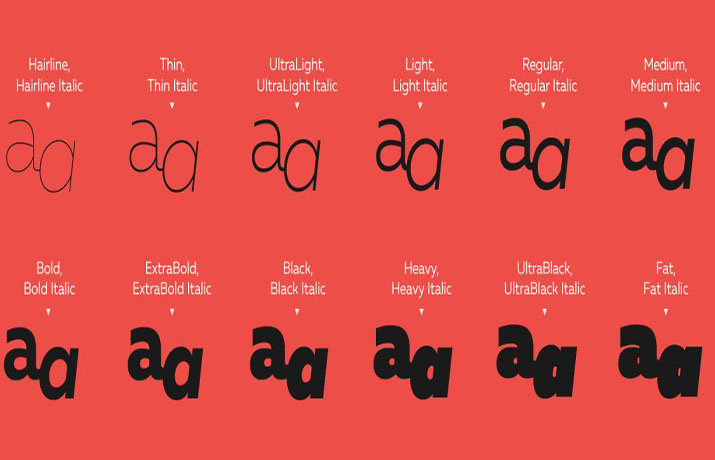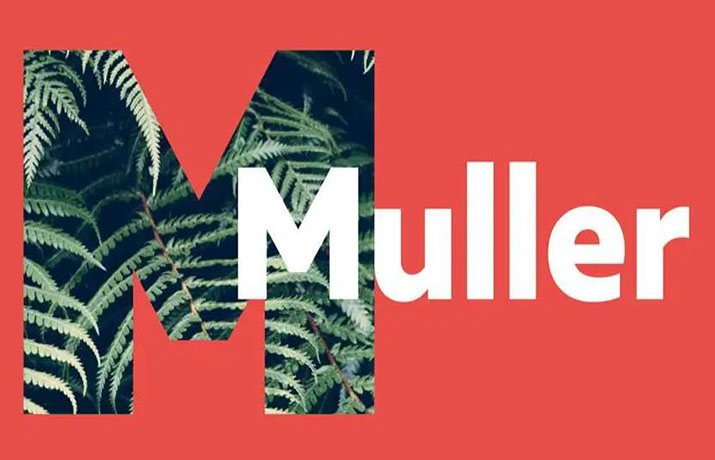
Muller Font is a modern sans serif typeface designed by Fontfabric, a Bulgarian type foundry. And it is a great choice for titles, headlines, and body copy.
The font features a clean and minimalist design that is perfect for a wide range of design applications, from branding and advertising to editorial and web design.
The font has a clean and uniform design, with well-spaced letters and a balanced proportion that ensures optimal legibility and readability.
“Muller typeface includes 20 weights, and 5 widths, and supports over 200 languages. The font also includes a range of special characters and ligatures, which can be used to create unique and creative typography designs.”
Muller Font is a versatile and modern sans-serif typeface that is perfect for a range of design applications.
- Thus you can cover the entire design industry with its help. You can create covers, posters, signs, headlines, paragraphs, card printing, fabric printing, labels, social media posters, documents, brochures, cards, flyers, headers, titles, banners, mugs, watermarks, Adobe Photoshop, Adobe Illustrator, and more.
- Its clean and minimalist design, combined with a range of weights and special characters, makes it a great choice for designers looking to create dynamic and visually interesting typography.
Whether you’re designing a logo, a website, or a brochure, Muller Font can help you achieve your design goals.